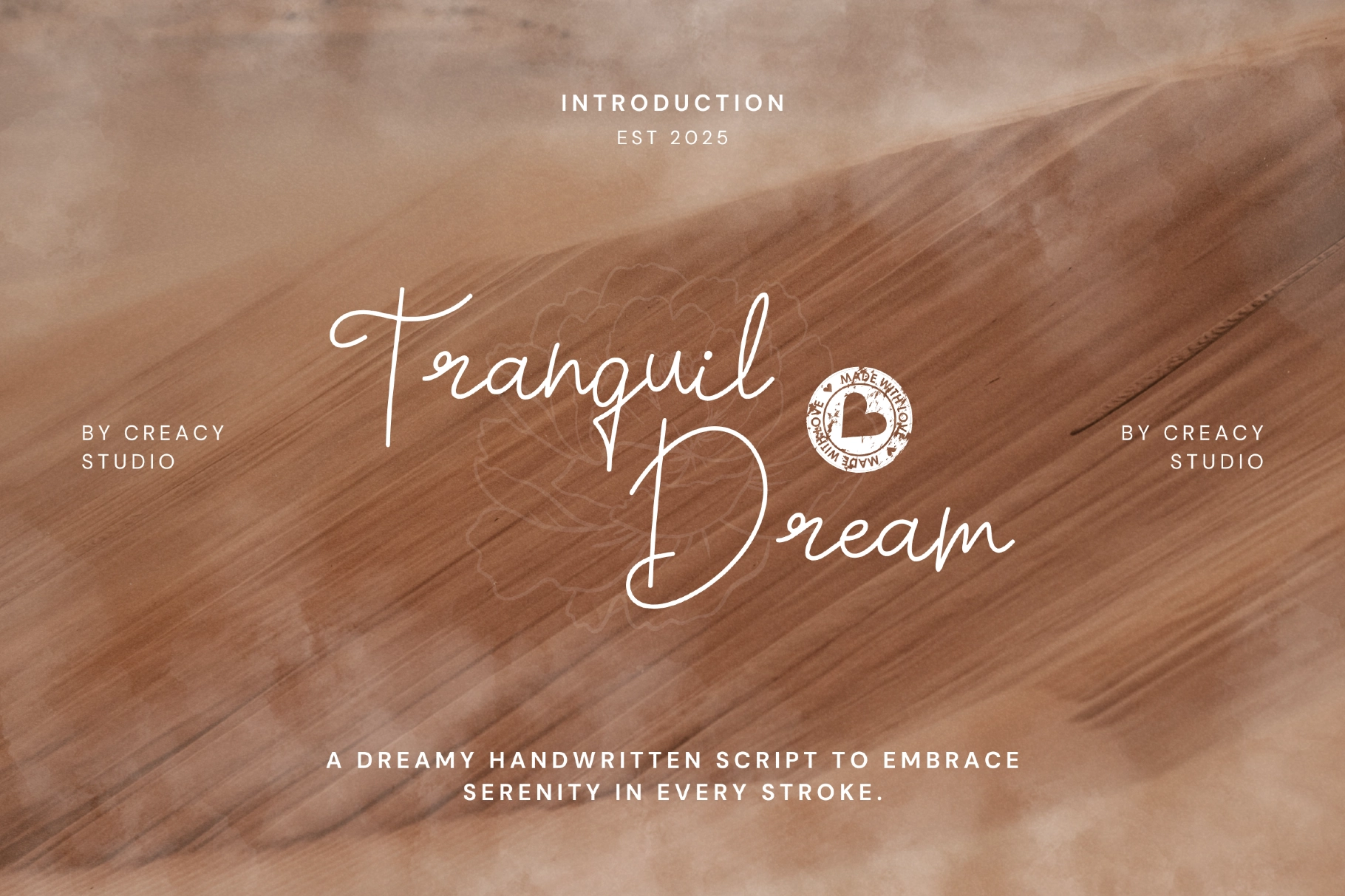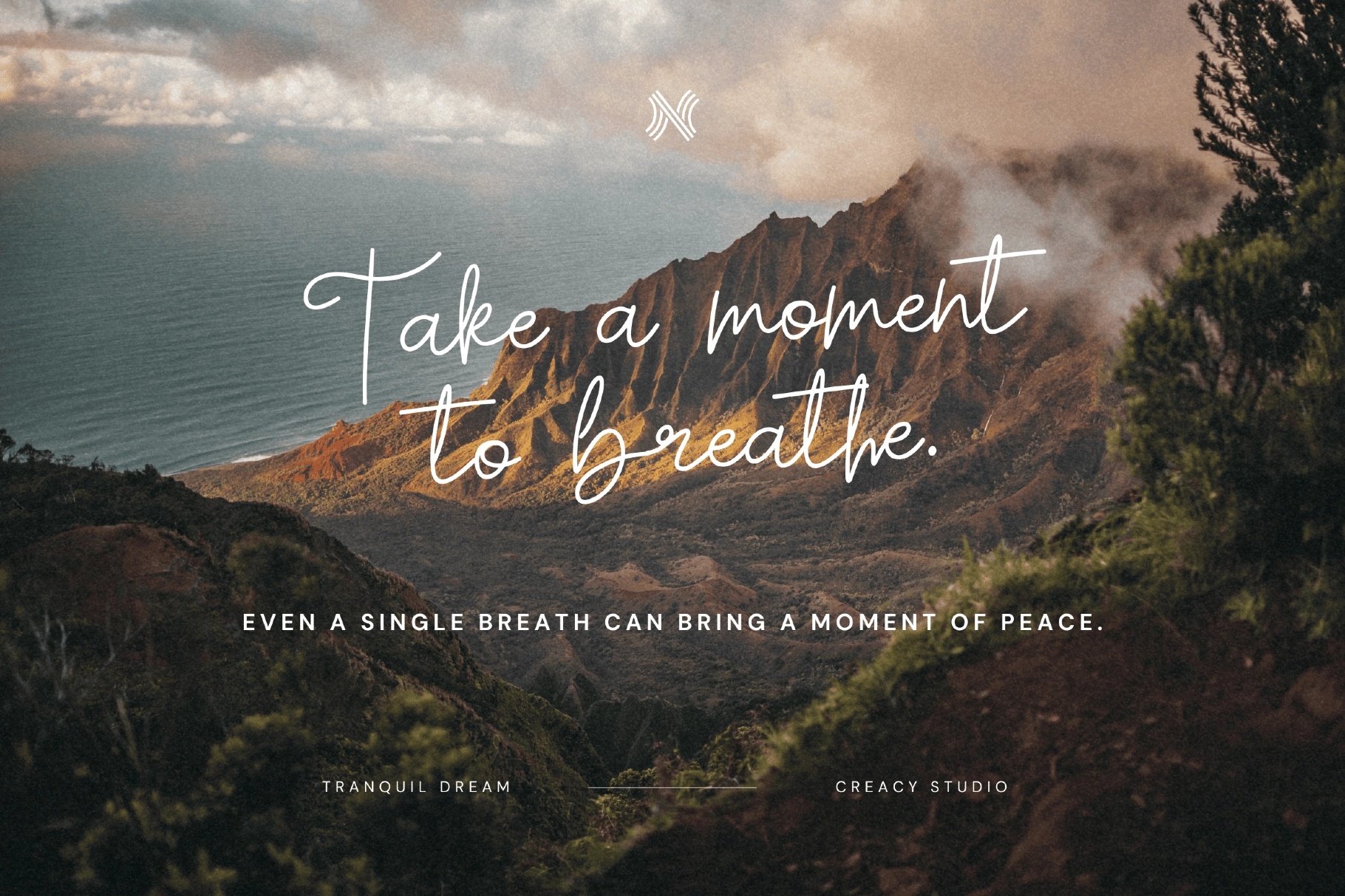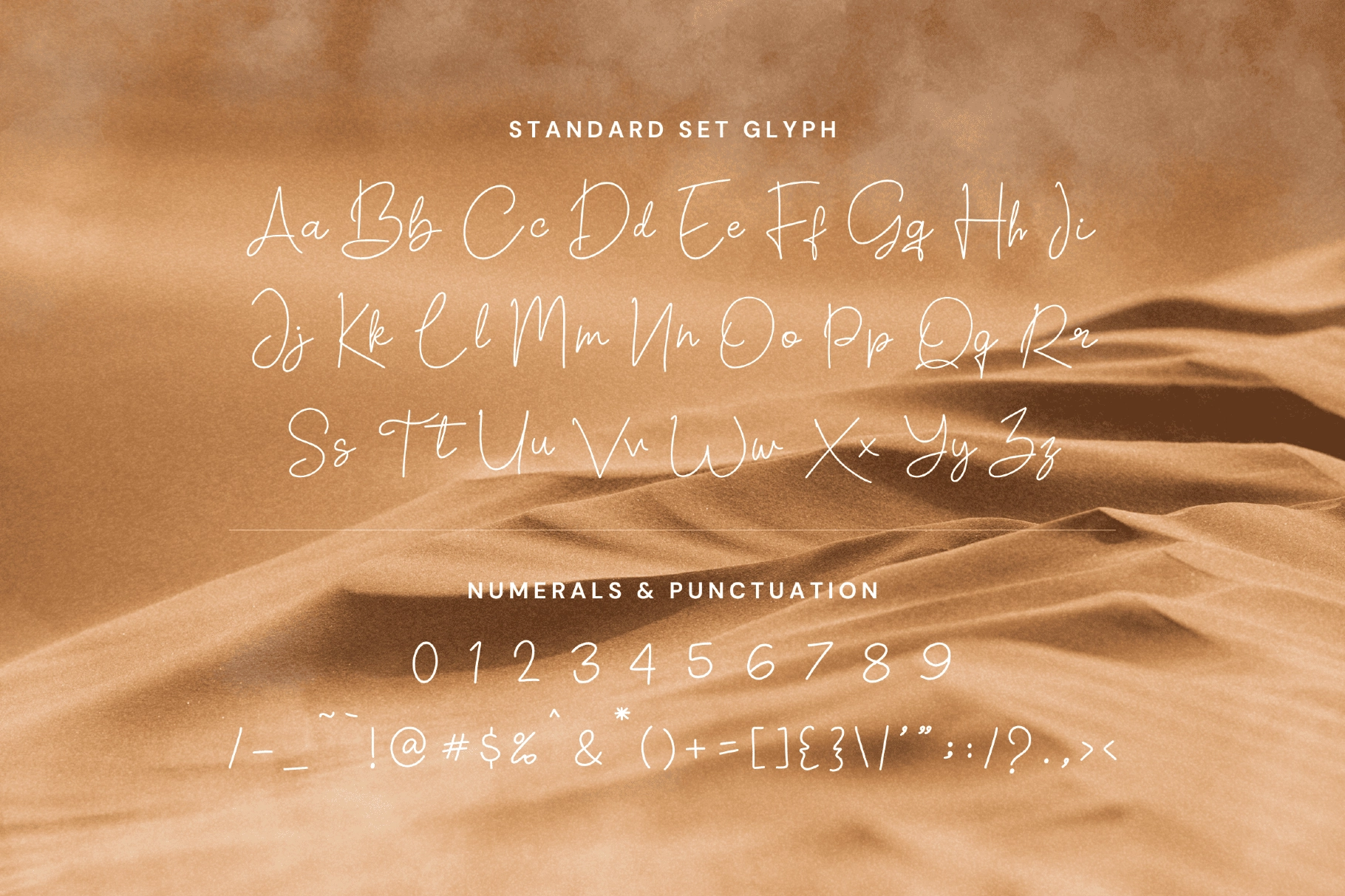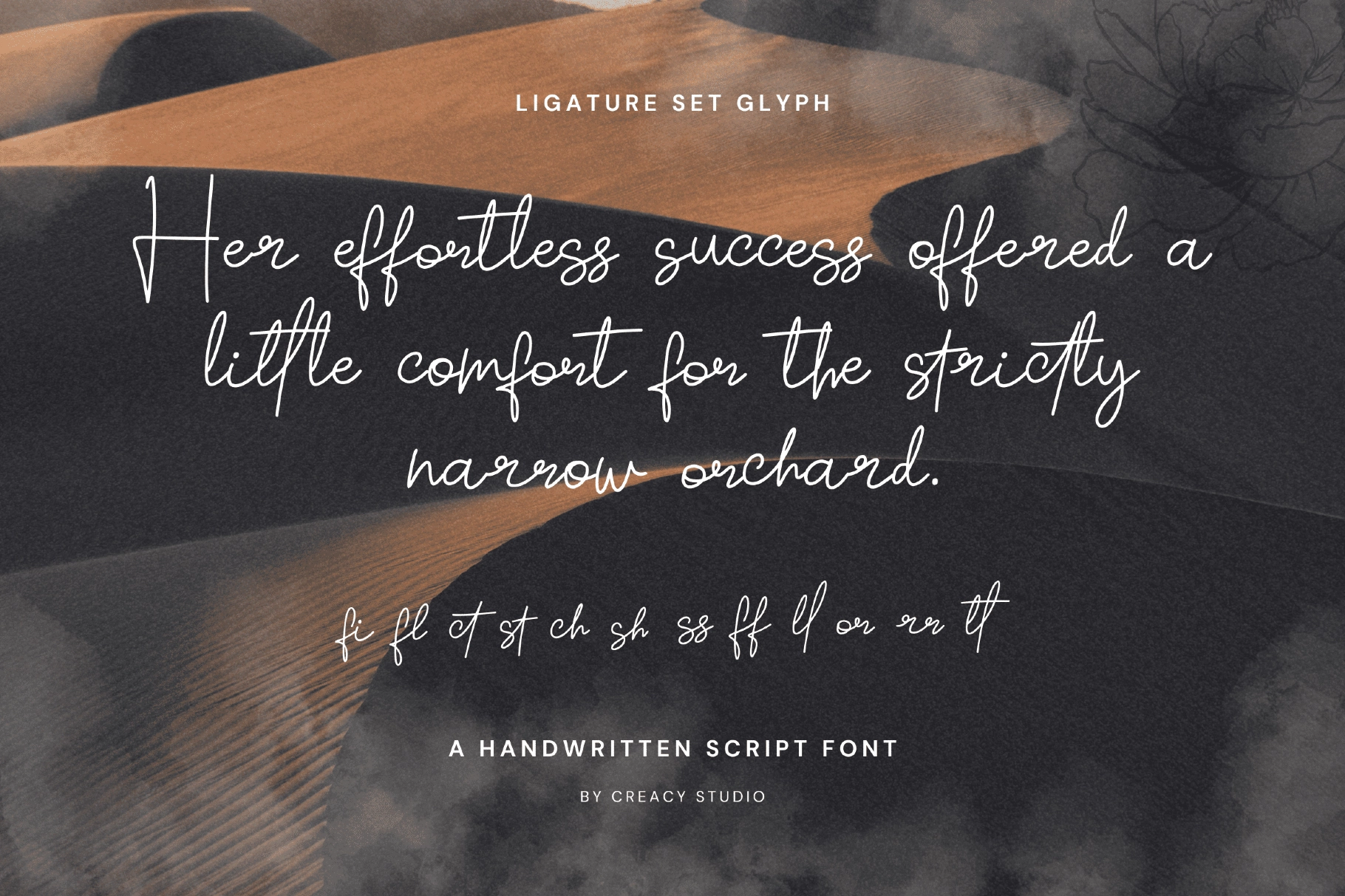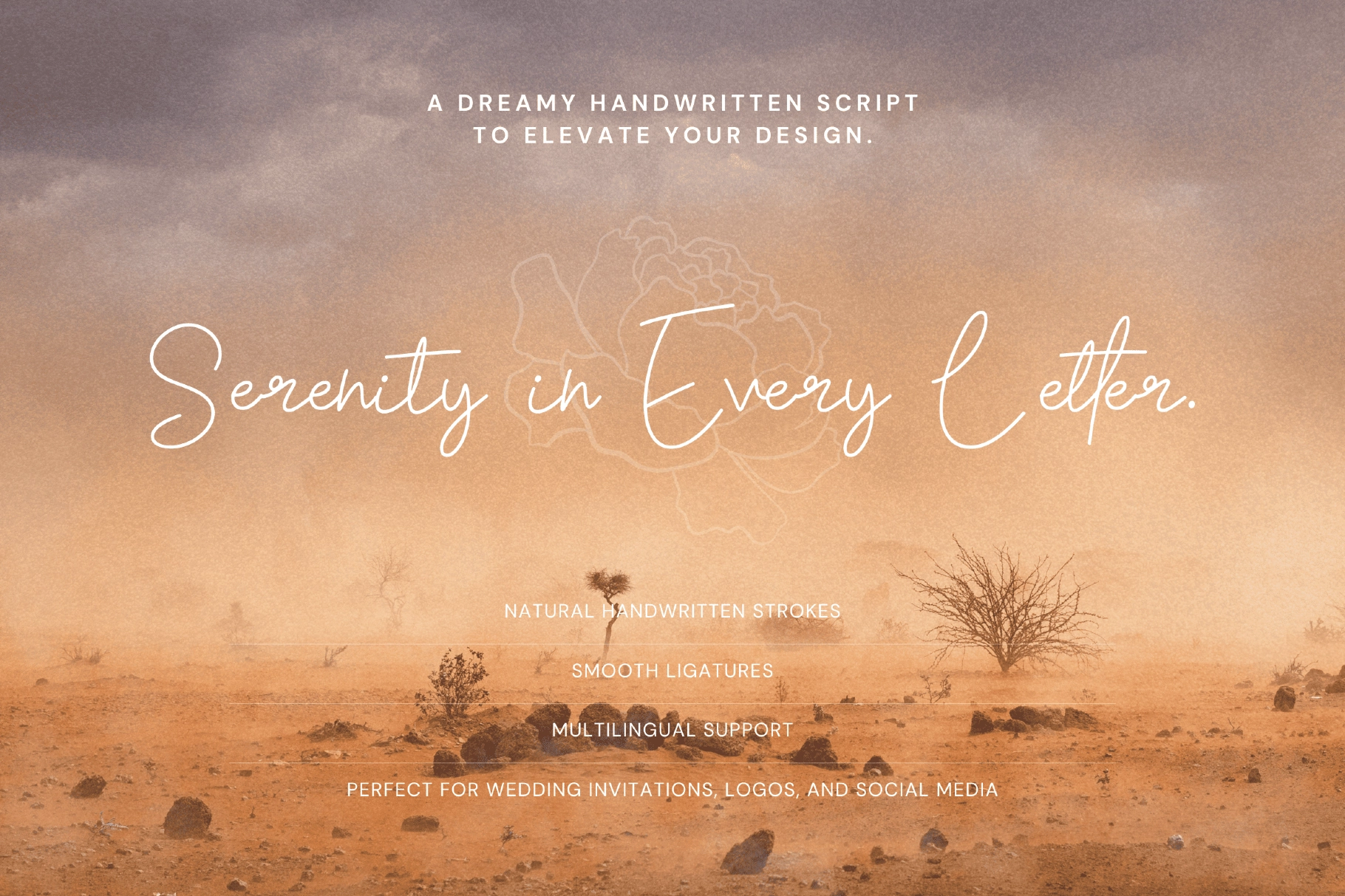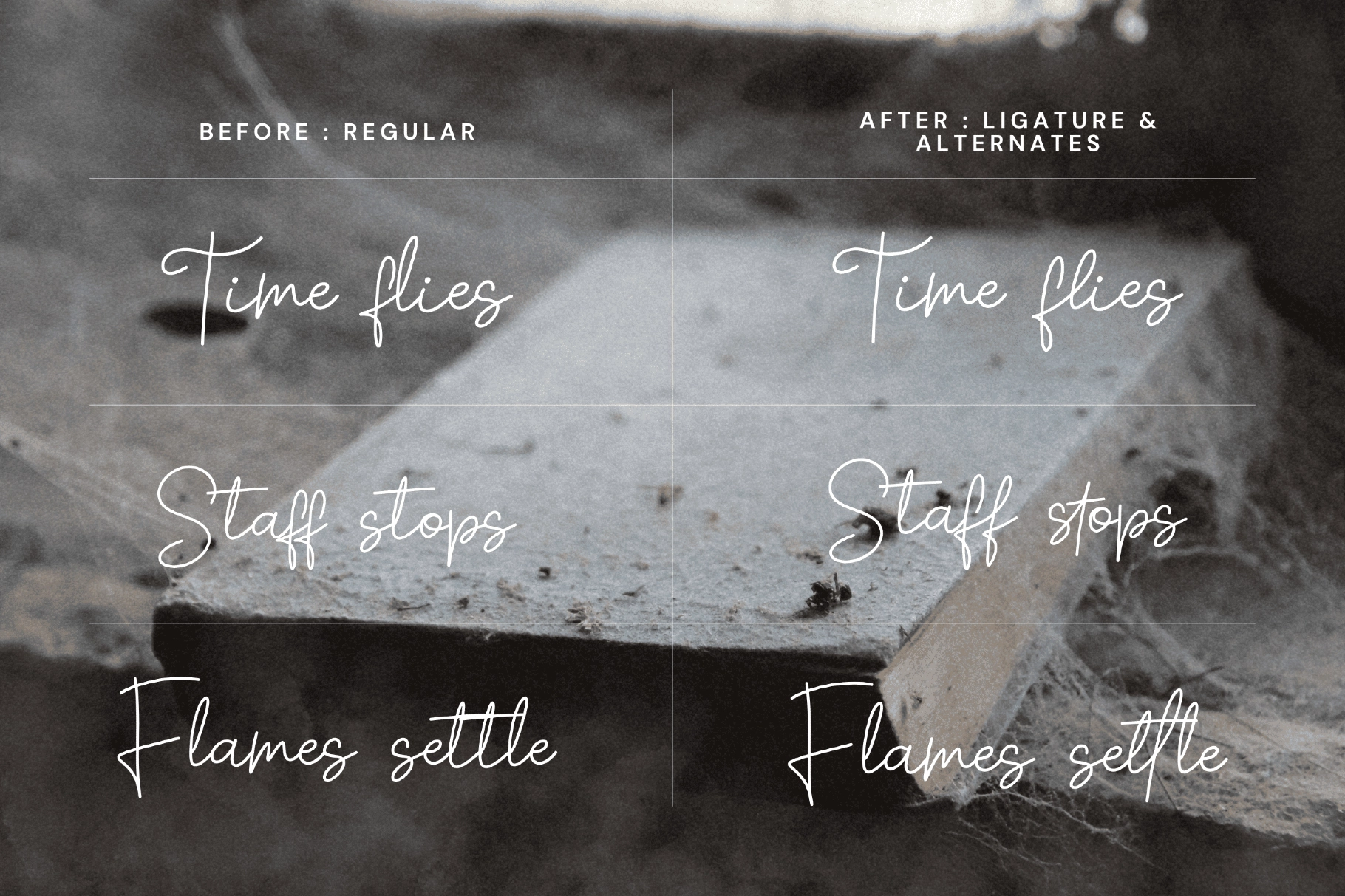
Tranquil Dream – Soothing Script
Tranquil Dream Script
Find calm in every curve with Tranquil Dream, a soothing handwritten script that evokes warmth, serenity, and poetic simplicity.
Each stroke feels intentional yet effortless — like ink gently flowing across soft paper — perfect for expressing elegance without excess.
Inspired by slow mornings, cozy journals, and mindful design, Tranquil Dream brings a peaceful rhythm to your creative work. It’s the perfect choice for those who love refined minimalism and organic charm.
- Uppercase & lowercase
- Alternates and ligatures for natural handwriting flow
Perfect For
- Lifestyle & wellness branding
- Journals and packaging
- Elegant logos & signatures
- Wedding stationery
- Social media quotes & graphics
Let your message breathe and your designs whisper tranquility with Tranquil Dream – Soothing Script.